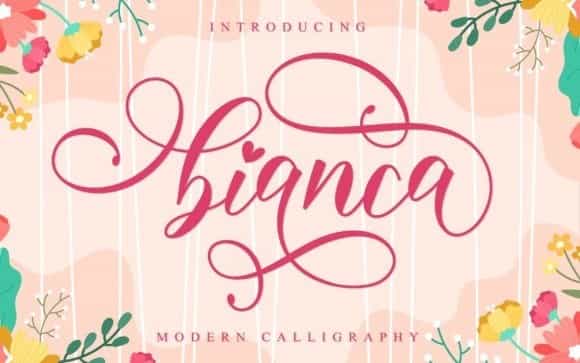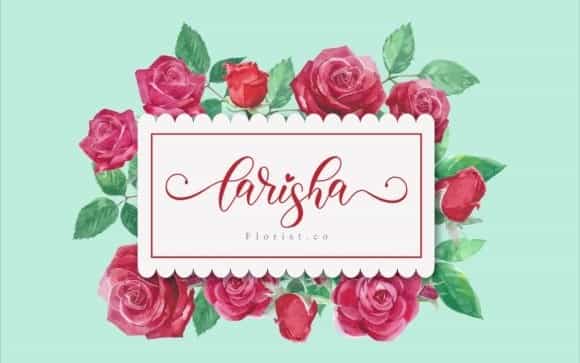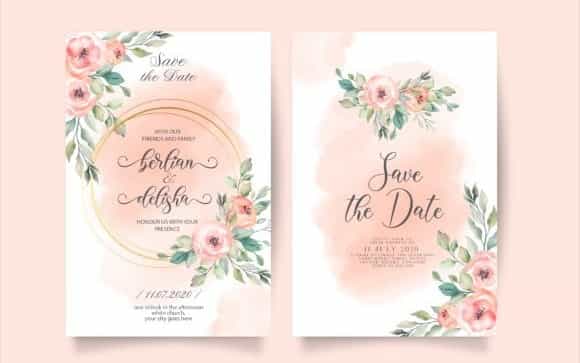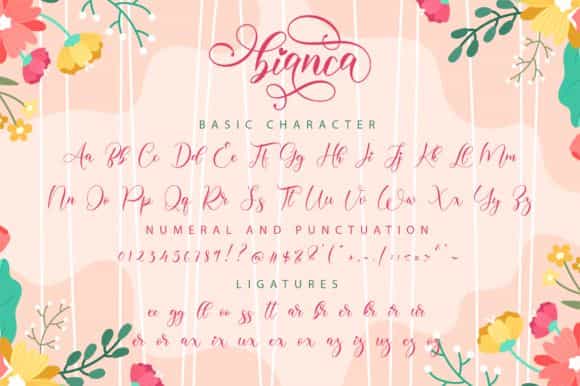
Introducing Bianca Calligraphy Font. It is a modern calligraphy font with the heart characters being its special feature. Let yourself be impressed by the realness of it and use it to design beautiful wedding invitations, nice stationary art, and funny greeting cards. Bianca is a nice and aristocratic script font.